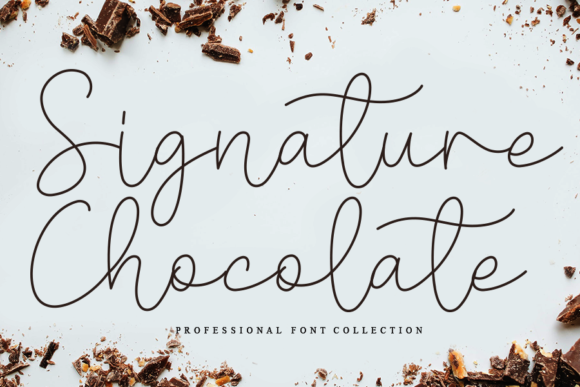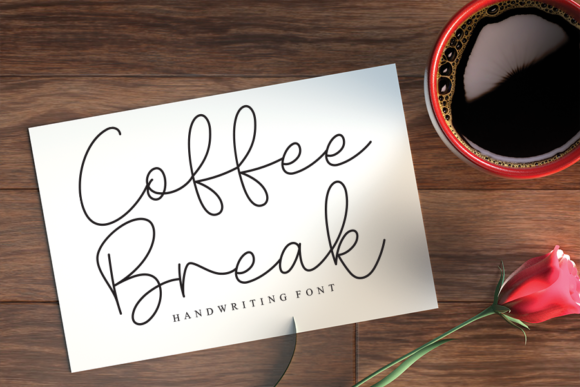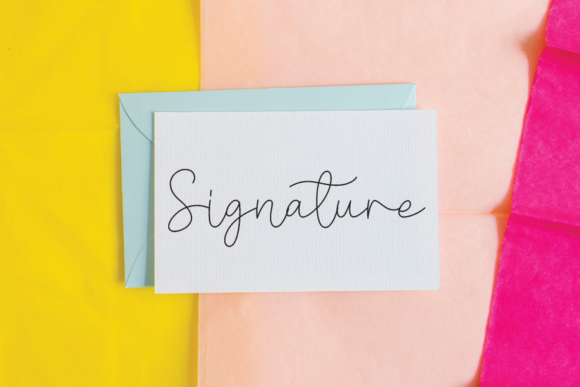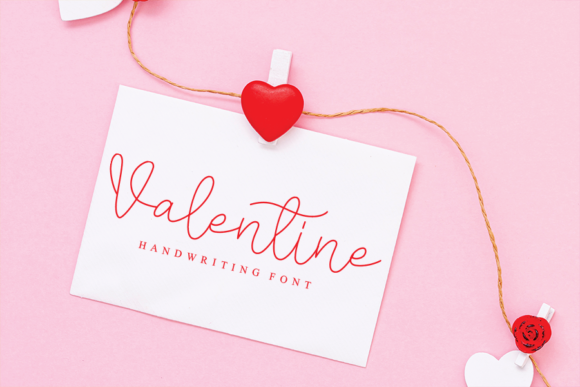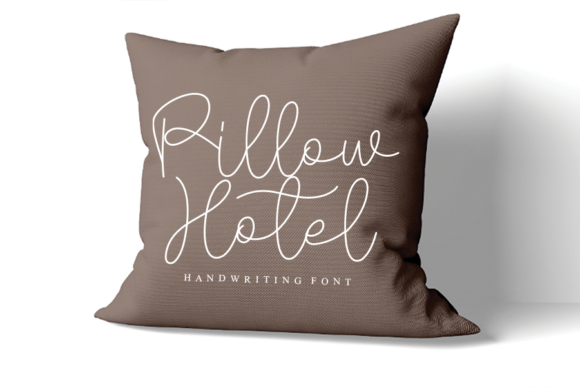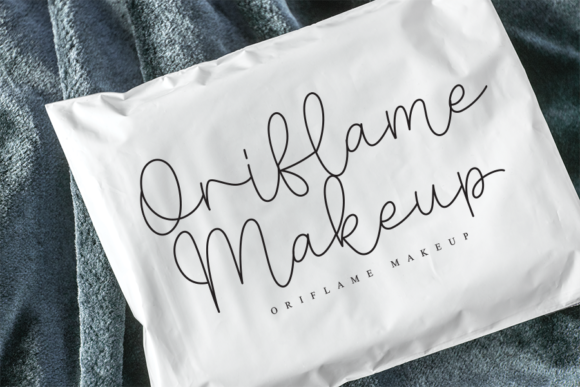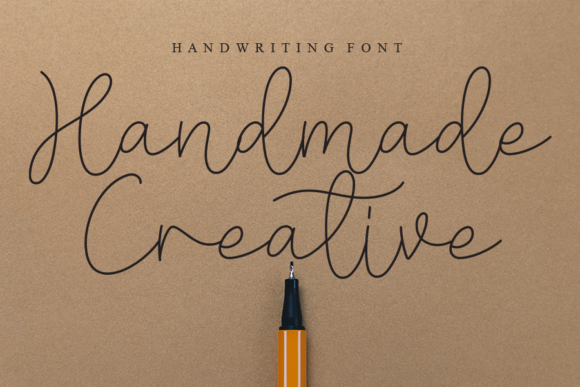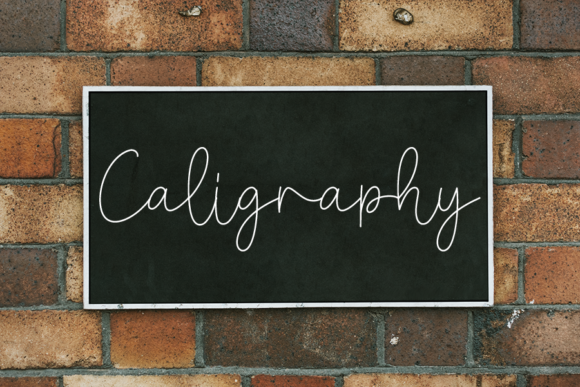
Signature Chocolate Font
About Signature Chocolate Font
Introducing “Signature Chocolate,” a fresh and unique script font that brings a carefree and playful edge to your designs. With its quirky and casual feel, this font is perfect for adding a touch of personality and charm to various projects, including logos, invitations, wedding designs, social media posts, and much more.
The distinct style of “Signature Chocolate” sets it apart, making it a great choice for logos. Its playful and carefree attitude adds a unique flair to your brand identity. Whether you’re creating a logo for a creative business, a café, or a lifestyle brand, “Signature Chocolate” will infuse your design with a sense of fun and creativity, making it instantly recognizable and memorable.
Invitations become more engaging and captivating with the use of “Signature Chocolate.” Its fresh and unique script brings a touch of playfulness to your event invitations, whether it’s a birthday party, a wedding, or a special celebration. The natural-looking ligatures provided with the font add an extra level of authenticity and charm to your invitation designs, making them truly stand out.
Wedding designs are elevated with the addition of “Signature Chocolate.” Its carefree and playful edge brings a sense of joy and celebration to your wedding stationery, including save-the-dates, wedding invitations, menus, and more. The font’s unique style adds a touch of whimsy and personality to your designs, setting the tone for a memorable and joyful occasion.
Social media posts become eye-catching and engaging with the use of “Signature Chocolate.” Its fresh and playful script adds a pop of personality to your social media graphics, whether it’s for promoting products, sharing quotes, or announcing special offers. The font’s casual and quirky nature helps your posts stand out in the crowded social media landscape, grabbing the attention of your audience.
In summary, “Signature Chocolate” is a fresh and unique script font that brings a carefree and playful edge to your designs. With its quirky but casual feel and natural-looking ligatures, it is perfect for logos, invitations, wedding designs, social media posts, and much more. Incorporate “Signature Chocolate” into your projects to add a touch of personality and charm, making them visually appealing and engaging.